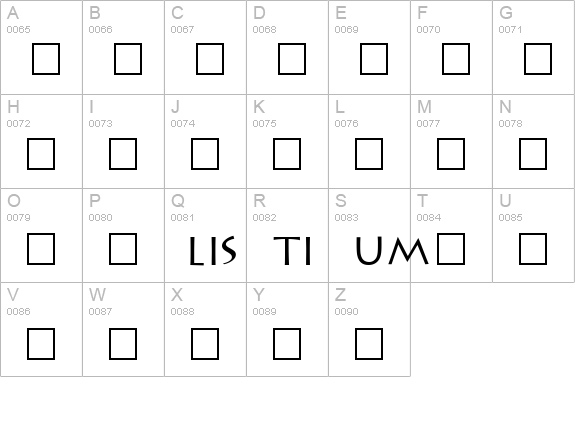
Leaflet Font Details
Leaflet font is a stunning typeface that effortlessly combines elegance with versatility. This font is perfect for any project that requires a touch of sophistication, whether it be wedding invitations, logos, or editorial designs. With its graceful curves and clean lines, Leaflet font adds a sense of refinement to any piece of work. What sets Leaflet font apart is its accessibility. Not only is it visually appealing, but it is also freely available to download at FontsMarket.com. This means that designers and enthusiasts alike can easily incorporate Leaflet font into their creations without breaking the bank. The freedom to use this font without any cost restrictions allows for a wider range of possibilities and opens the doors to creativity. Leaflet font offers a variety of weights and styles, making it a versatile choice for any design project. Whether you're looking for a bold statement or a delicate touch, Leaflet font has you covered. Its legibility and attention to detail ensure that your message will be delivered clearly and effectively. The clean and modern aesthetic of Leaflet font makes it suitable for a wide range of themes and styles. Its timeless appeal ensures that it will never go out of fashion, making it a wise investment for any designer. Whether you're working on a branding project, a website, or a magazine layout, Leaflet font is sure to elevate your design to new heights. In addition to its visual appeal and versatility, Leaflet font also offers a user-friendly experience. The font is easy to install and compatible with a variety of design software, ensuring a seamless integration into your workflow. This allows you to focus on your creative process without any technical difficulties. In conclusion, Leaflet font is a stunning, versatile, and free typeface that adds a touch of elegance to any design project. With its accessibility and wide range of styles, Leaflet font is a valuable asset for designers and enthusiasts alike. Download it for free at FontsMarket.com and embark on a creative journey that is sure to leave a lasting impression.